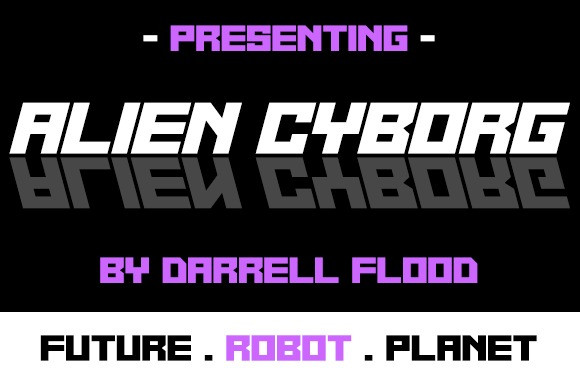
Alien Cyborg Display Font
Alien Cyborg Display Font is a sharp, angular, futuristic font in a robot-like style. Perfect for sci-fi themes and space adventures! This font is PUA encoded which means you can access all of the glyphs and swashes with ease!